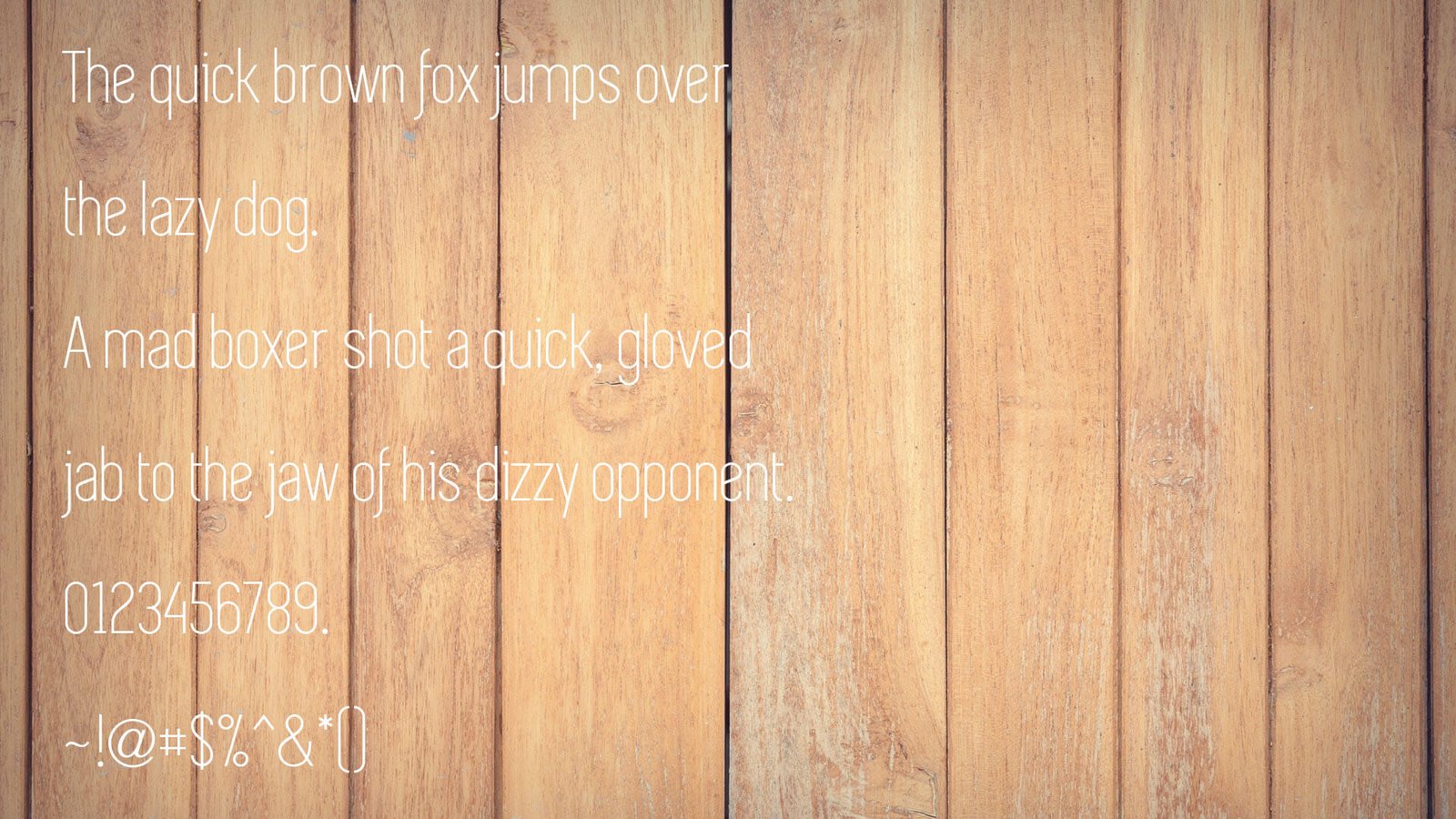
Today, we’d like to introduce you to the versatile Simplifica font created by Kaiwa. This stylish font was released by the KAIWA studio in 2014. Kaiwa is renowned as one of the top graphic and typeface designers globally.
This font has a very simple and versatile design. It lies in the sans serif typeface category. It contains up to 250+ unique glyphs.
| Name | Simplifica Font |
| Designer | Kaiwa |
| Type | Sans Serif |